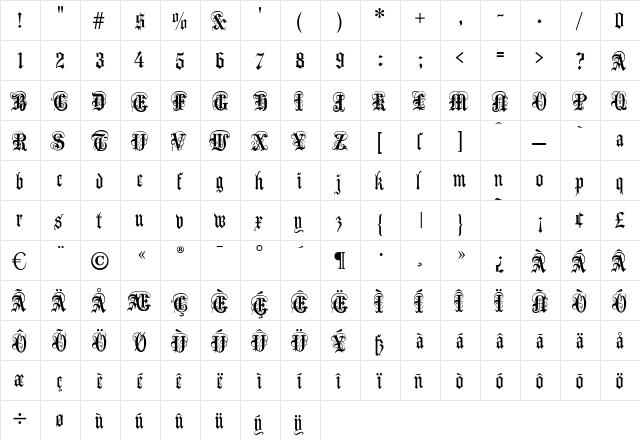
AnglicanText Regular
Design Context for AnglicanText Typeface
AnglicanText is a composed and adaptable typeface that performs quietly and consistently across a wide range of design contexts.